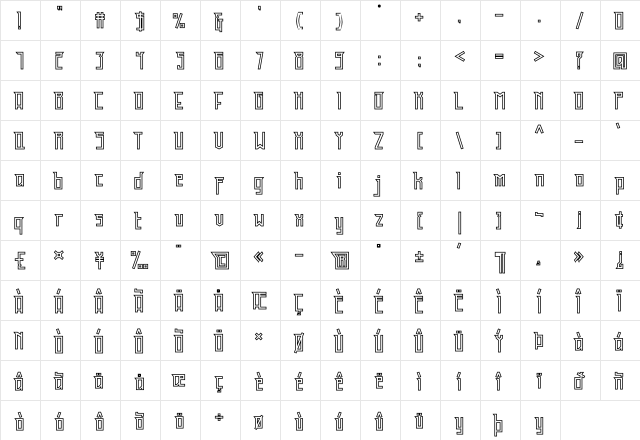
Gainstone Outline Regular
Design Context for Gainstone Outline Typeface
Gainstone Outline is built around its visual character rather than neutral utility — its distinctive forms are designed to make an impression at display sizes.
Font Pairing: Pair with a clean neutral sans-serif for body copy to let Gainstone Outline's character lead without overwhelming the composition.
Pro Tip: Use Gainstone Outline exclusively at display sizes — it was designed to be seen, not read at length. Let a neutral companion handle body copy.